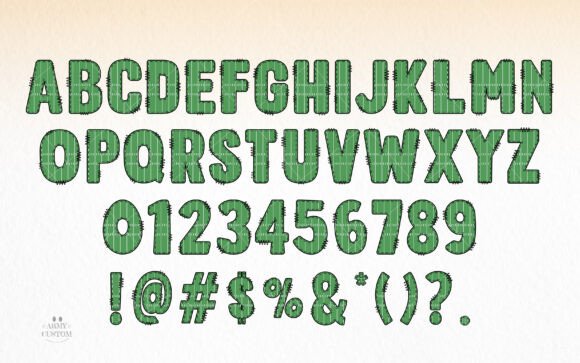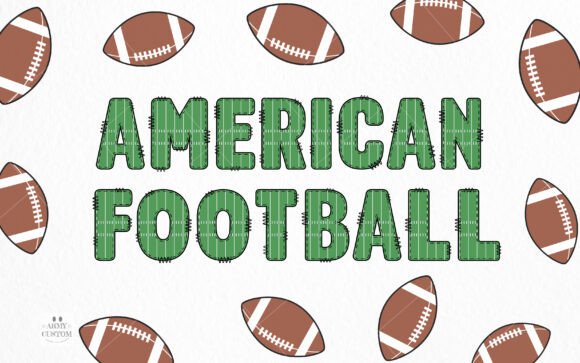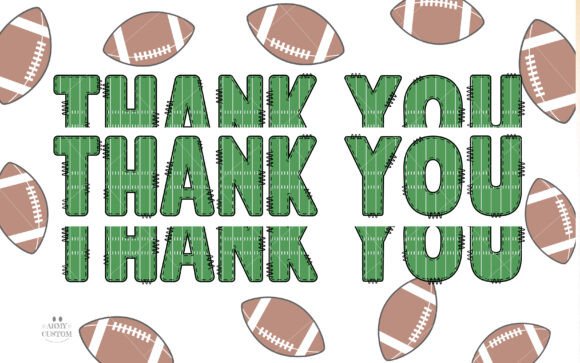
The Perfect Play: Introducing the American Football Field Font
As a designer, have you ever been stuck on a project, unable to find the perfect font to capture the essence of your idea? Perhaps you’re working on a sports-themed design, and you want to add an extra layer of authenticity to your project. That’s where the American Football Field Font comes in – a game-changing innovation that’s sure to score big with your clients.
This dynamic font is designed to evoke the spirit of American football, with its bold lines and athletic typography. It’s the perfect choice for designers looking to add a touch of sportsmanship to their work, from sports team logos to merchandise and promotional materials. With its unique blend of creativity and passion, the American Football Field Font is a valuable addition to any designer’s toolkit.
American Football Field Font Key Features
- Font Type: Sans-Serif, specifically designed for displaying yard lines and other grid markings on an American football field.
- Unique Characteristics: Distinctive grid markings and yard line designs that conform to official NFL (National Football League) and NCAA (National Collegiate Athletic Association) regulations.
- Scalability: Designed to maintain legibility and clarity across various font sizes, making it suitable for use in a range of applications, from stadium signage to digital displays.
Designer Review: American Football Field Font
First off, I have to say that the American Football Field Font is a unique and interesting project. ✨ The designer has taken the classic football field and turned it into a font, which is certainly a bold move. The end result is a font that’s both recognizable and customizable.
- ✨ The font is highly customizable, with options for different field colors, goalpost styles, and more.
- ✨ The font is easy to use, even for designers who aren’t familiar with football fields.
- ✨ The font includes a wide range of characters, including numbers, letters, and symbols.
- ⚠️ The font may not be suitable for all design projects, particularly those that require a more subtle or minimalist approach.
- ⚠️ The font’s customization options can be overwhelming for designers who are new to font design.
- ⚠️ The font may not be compatible with all operating systems or devices.
Overall, I think the American Football Field Font is a fun and creative project that’s sure to stand out in the right context. While it may have some limitations, it’s definitely worth checking out for designers who are looking for something unique and interesting.
The American Football Field Font is commonly used for:
- Designing sports-themed graphics and logos.
- Creating custom scoreboards and stadium signs.
- Developing promotional materials for football teams and events.
- Use it in conjunction with other sports-themed graphics and fonts.
- Experiment with different font sizes and styles to create a dynamic look.
- Pair it with bold colors and striking imagery to create a memorable design.